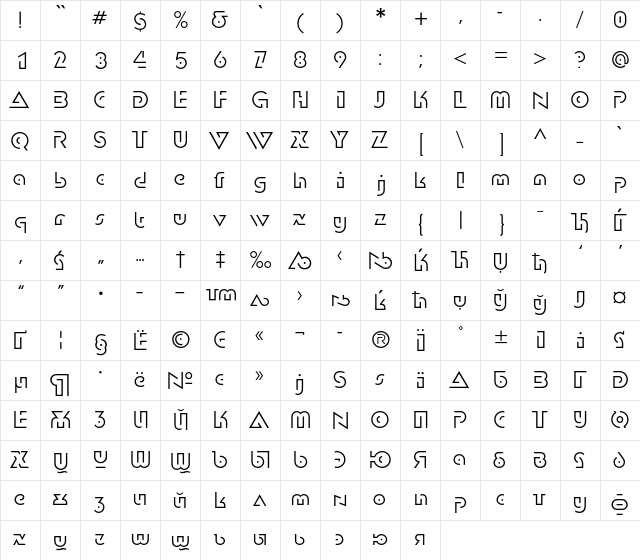
DublonLightC Regular Font Preview
DublonLightC Regular
DublonLightC Regular Font Details
Design Context for DublonLightC Typeface
DublonLightC takes a measured approach to typography — its balanced proportions and neutral character make it a reliable workhorse for both digital and print work. Its slender proportions lend an understated elegance to any composition.
Pro Tip: Pair DublonLightC with a font of contrasting weight or personality to build a more expressive typographic hierarchy.